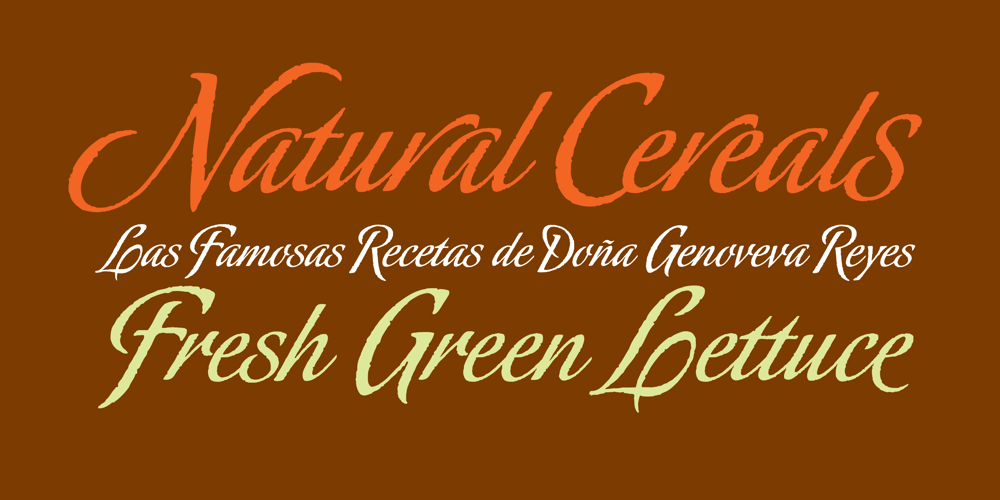
Oxida OT
Oxida OT font
Oxida OT Font Family was designed by Alejandro Paul, Angel Koziupa and published by Sudtipos. Oxida OT contains 1 styles and family package options. The unmistakable hand of Angel Koziupa and the technical expertise of Alejandro Paul brings us once more the kind of calligraphy that reads softly yet commands attention. This time around, Angel’s statement adds a slightly coarse and rusty aura to the usual elegance, which makes Oxida an indispensable typeface for use at large sizes, particularly in poster design, book covers and culinary packaging.